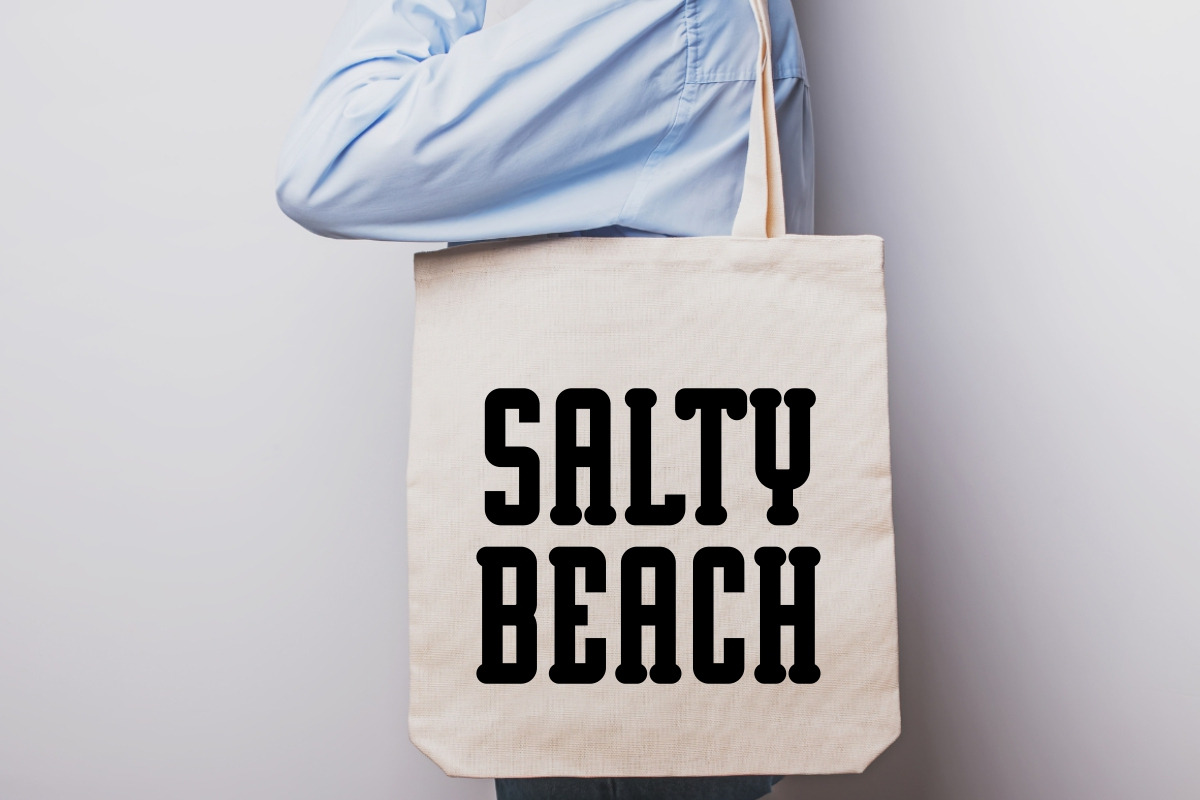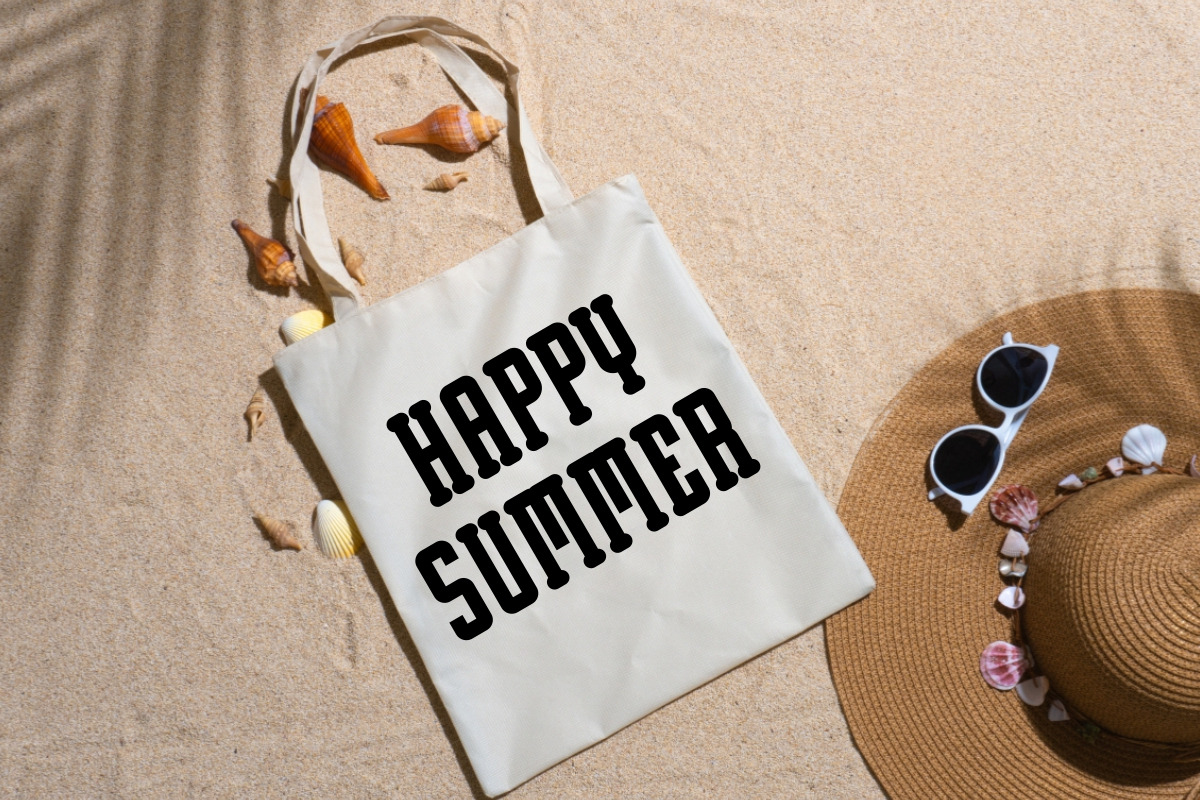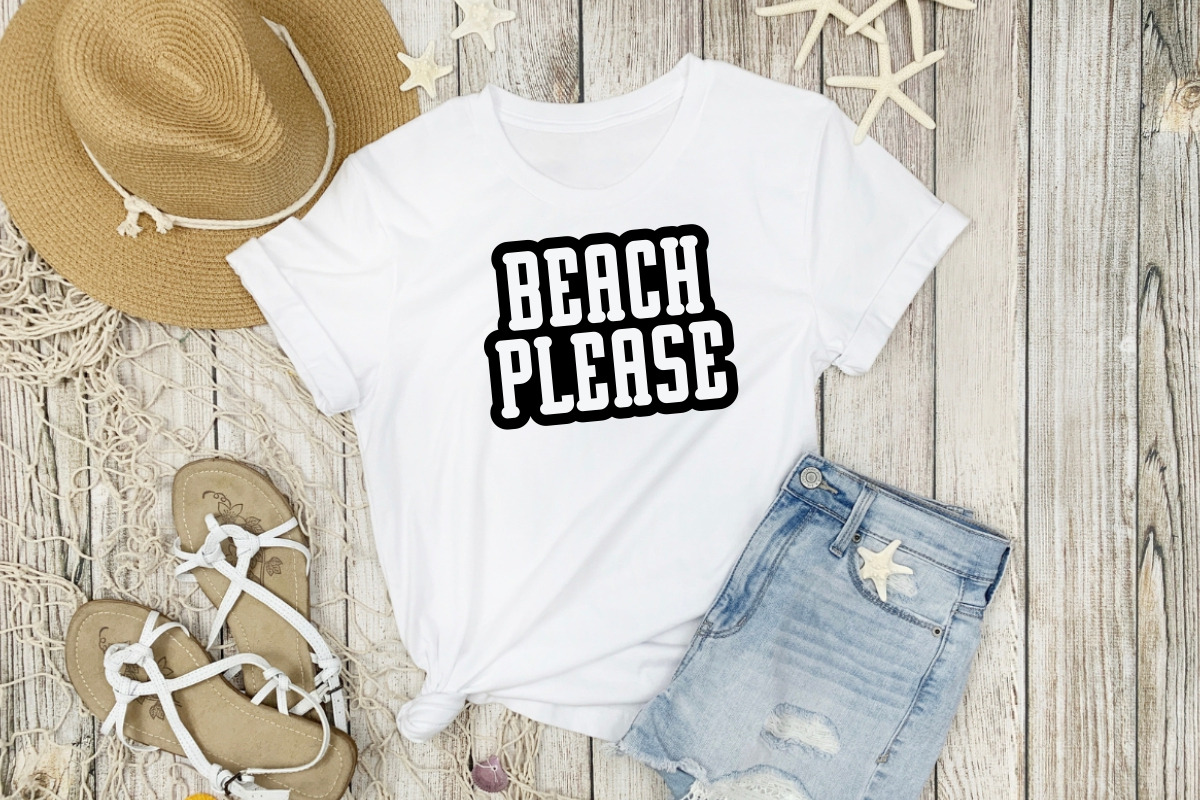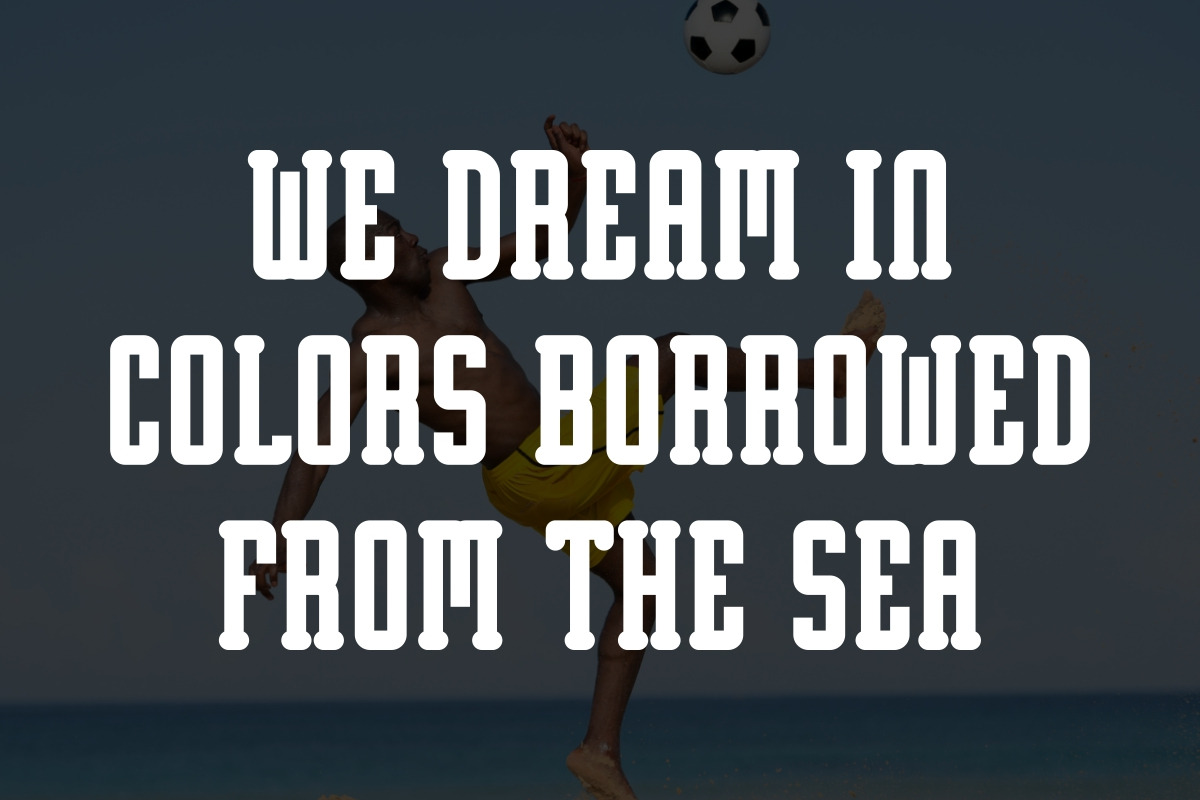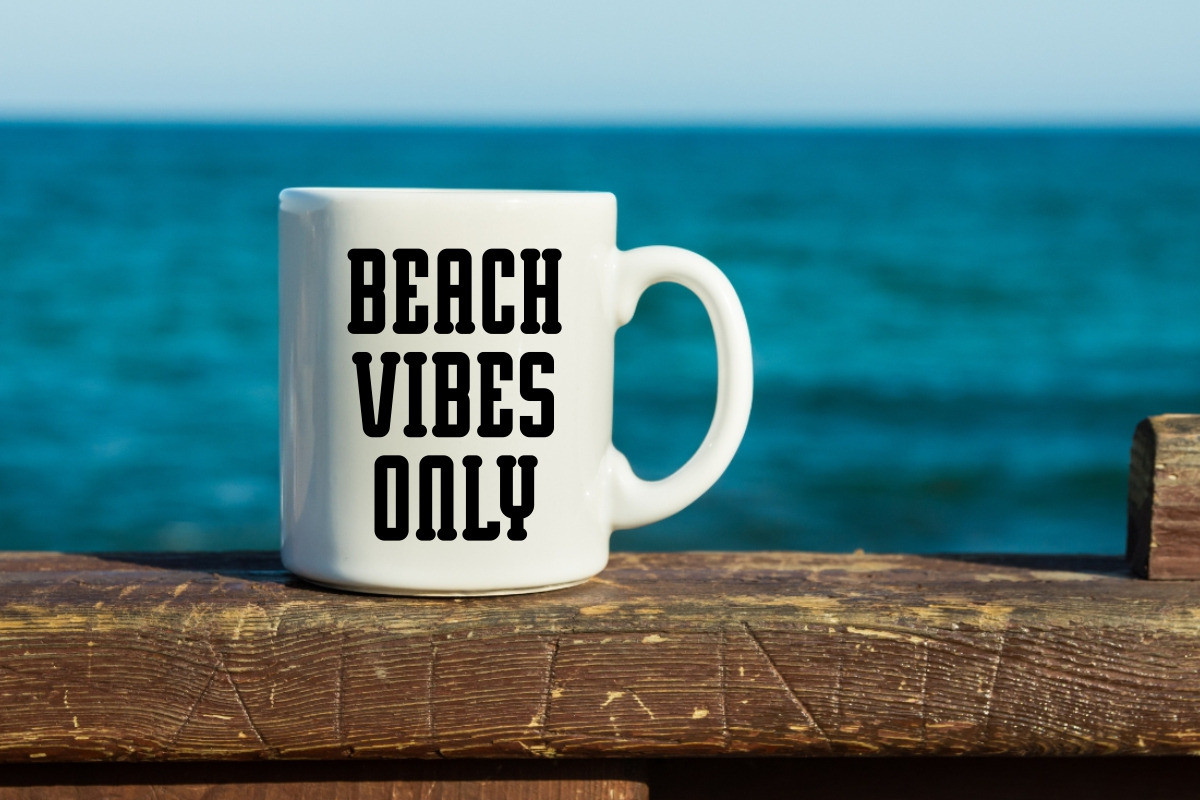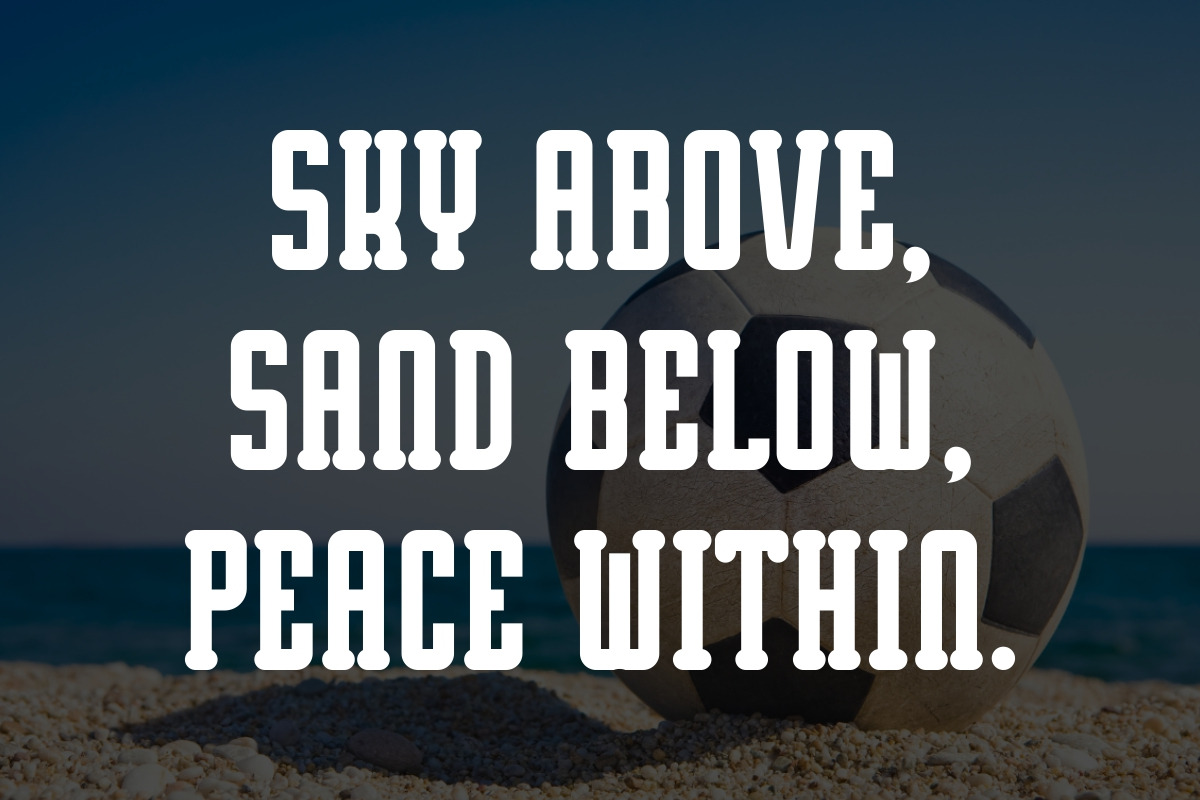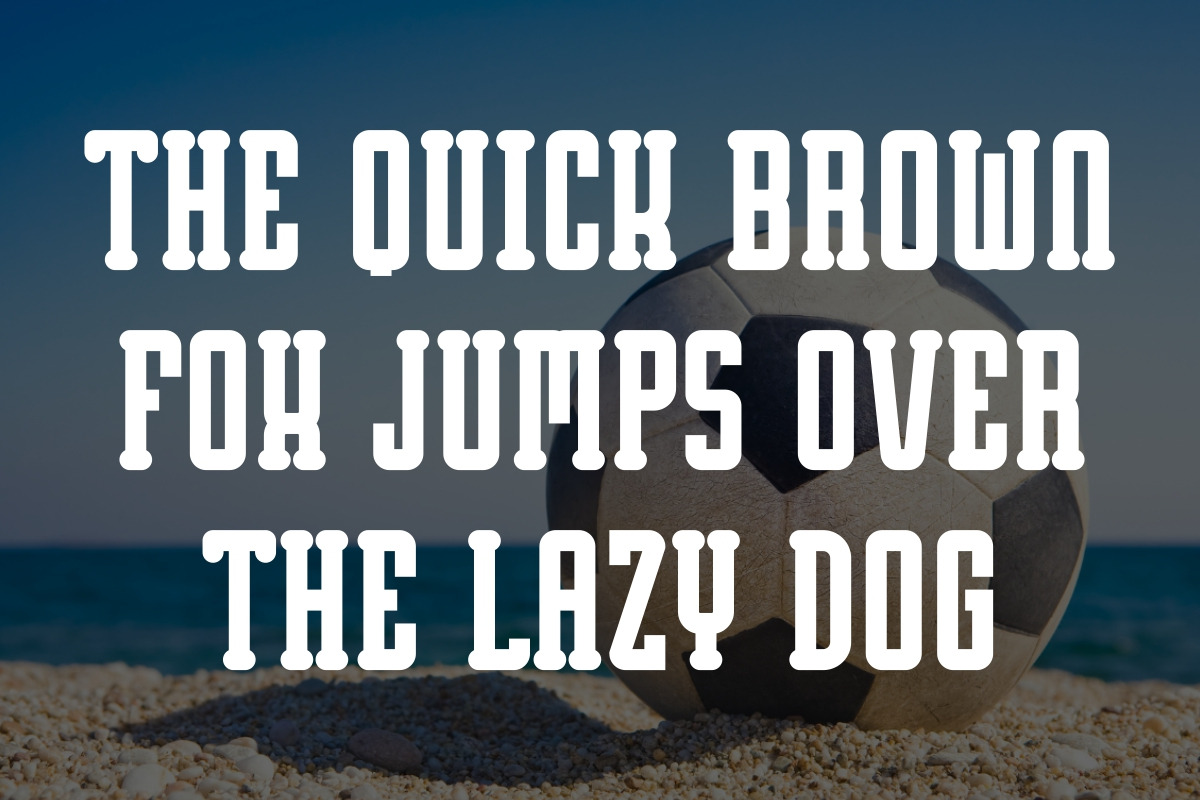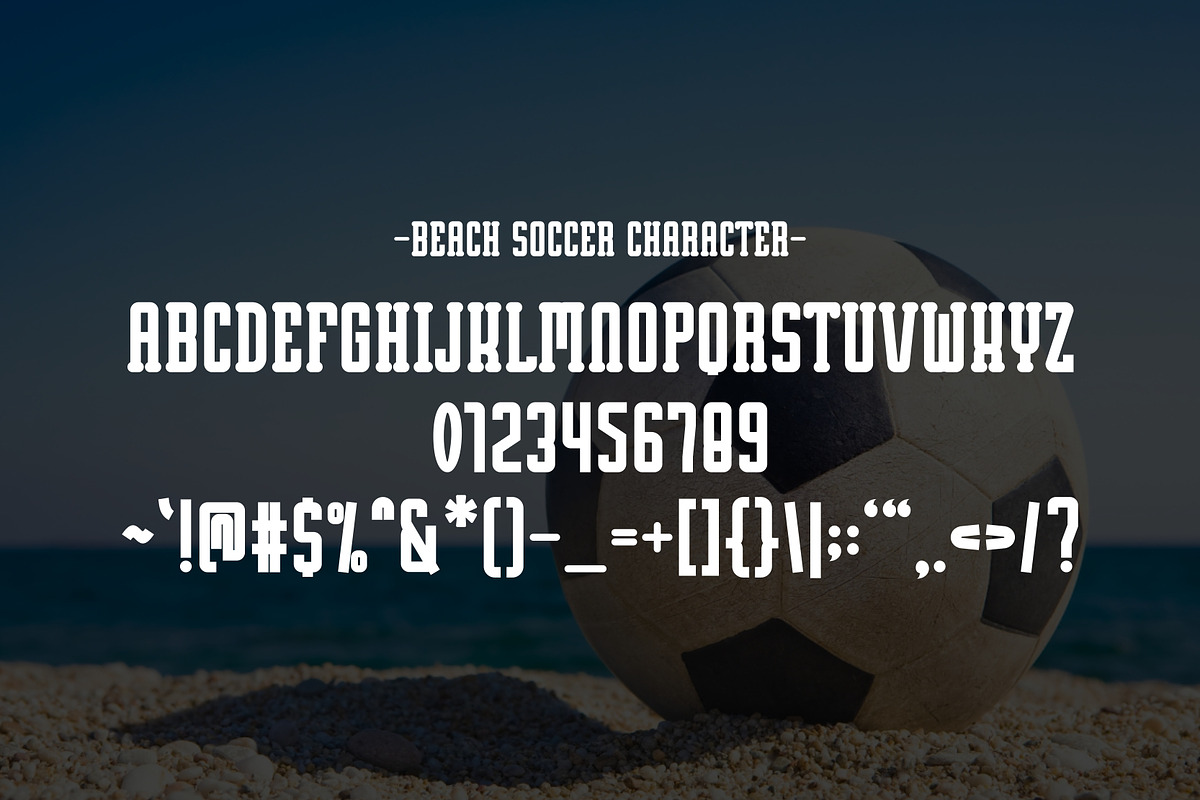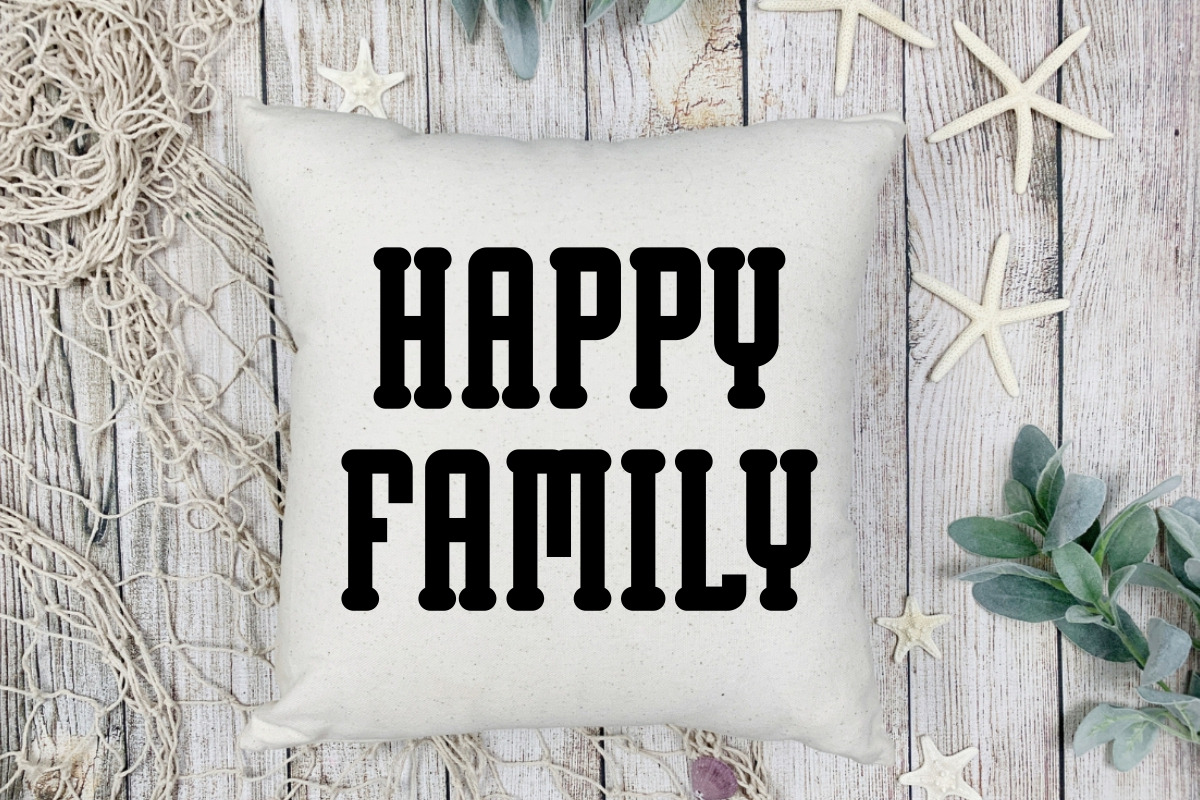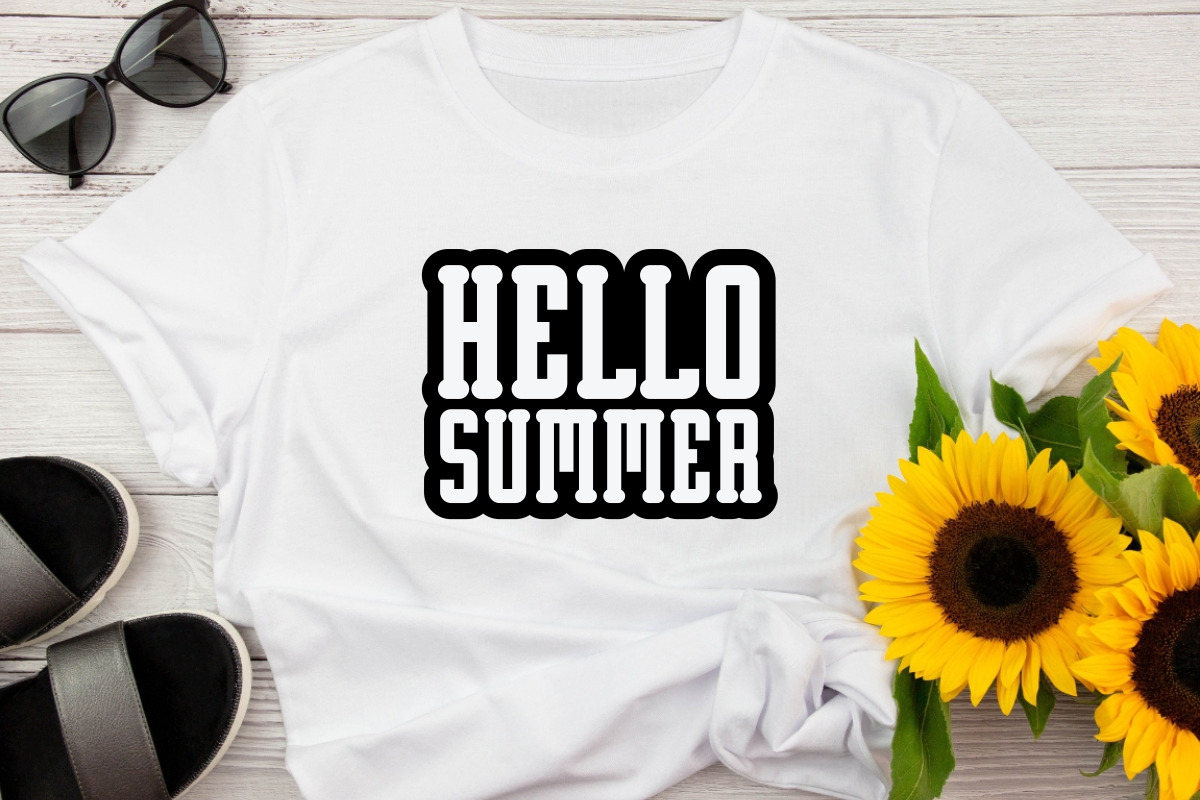
Beach Soccer - Playful Slab Serif
Beach Soccer is a vintage and playful slab serif font that exudes a fun and nostalgic vibe. With its unique blend of vintage charm and playful style, this font brings a lively and captivating touch to any creative projects. Perfect for quotes, backgrounds, posters, greeting cards, t-shirts, mugs, pillows and tote bags.